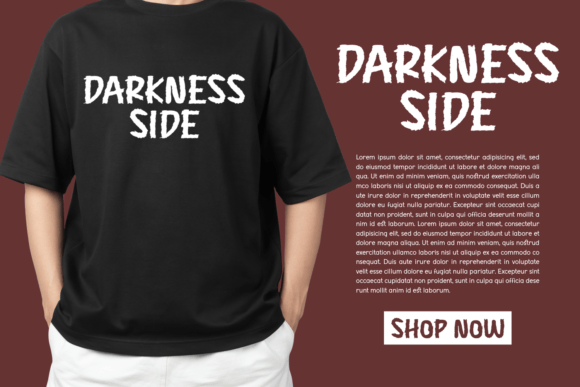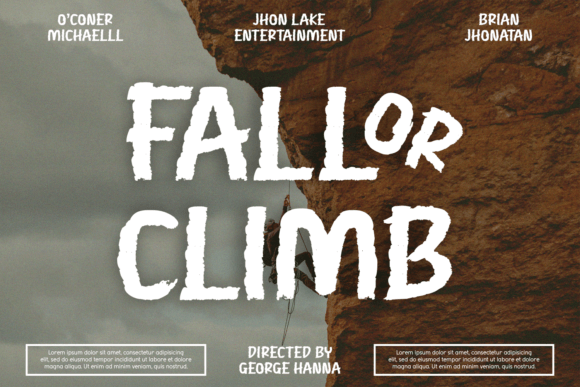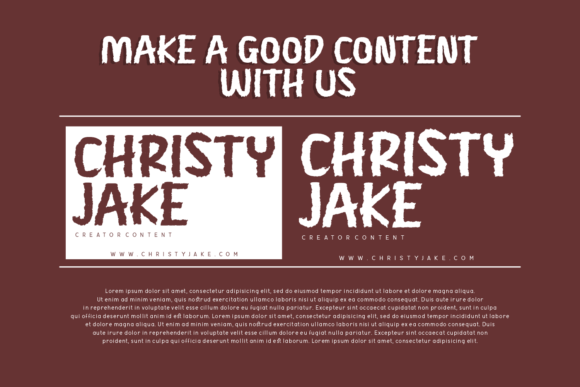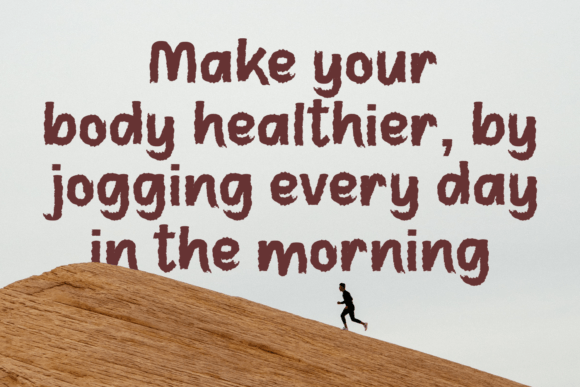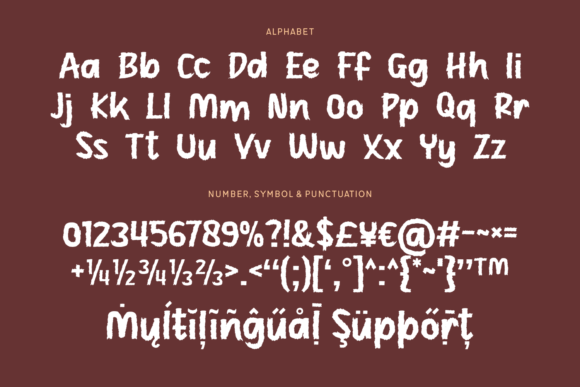
Introduction to Lifelong Effort Font
Have you ever stared at a blank page, trying to come up with the perfect design concept for a creative project? You’re not alone. As designers, we’ve all been there. Sometimes, all it takes is the right font to spark inspiration. That’s where the Lifelong Effort Font comes in – a textured display font that adds a grungy touch to your typography designs.
With its unique, high-quality design, this font is a valuable resource for designers looking to add some character to their work. Whether you’re creating posters, branding projects, web graphics, cards, or anything in between, the Lifelong Effort Font is sure to make your design stand out. And the best part? It’s available for free download, making it an excellent addition to your design arsenal.
Imagine adding a touch of grit and sophistication to your design with a simple font download. That’s exactly what the Lifelong Effort Font offers – a seamless way to elevate your creative projects and take them to the next level.
Key Features of Lifelong Effort Font
- High-quality design resource suitable for creative projects, offering a unique and modern look.
- This design resource is a valuable addition to any designer’s toolkit, offering a fresh and modern aesthetic for a wide range of creative projects.
Honest Review: Lifelong Effort Font
I recently had the opportunity to work with the Lifelong Effort Font, and I must say it’s been a game-changer for my creative projects. The font offers a unique blend of modern and classic elements that truly elevate the design of any piece.
What works well with this font is its versatility. It can be used for a wide range of design applications, from logos and branding to body text and headings. The high quality of the font ensures that it looks great on both light and dark backgrounds, and it’s also available for free download, making it a valuable resource for designers.
- ✨ Unique blend of modern and classic elements
- ✨ Versatile and suitable for a wide range of design applications
- ✨ High quality and crisp typography
- ✨ Transparent background options for added flexibility
One limitation of the Lifelong Effort Font is that it may not be suitable for very formal or traditional designs, as it has a slightly modern and edgy feel to it. Additionally, some users may find the font to be a bit too bold for certain applications.
Overall, I’m thoroughly impressed with the Lifelong Effort Font, and I highly recommend it to designers looking for a high-quality, versatile font for their creative projects.
The Lifelong Effort Font is ideal for creative projects, such as infographics, posters, and social media graphics. You can also use it for professional documents, like presentations and reports, to add a touch of elegance and sophistication.